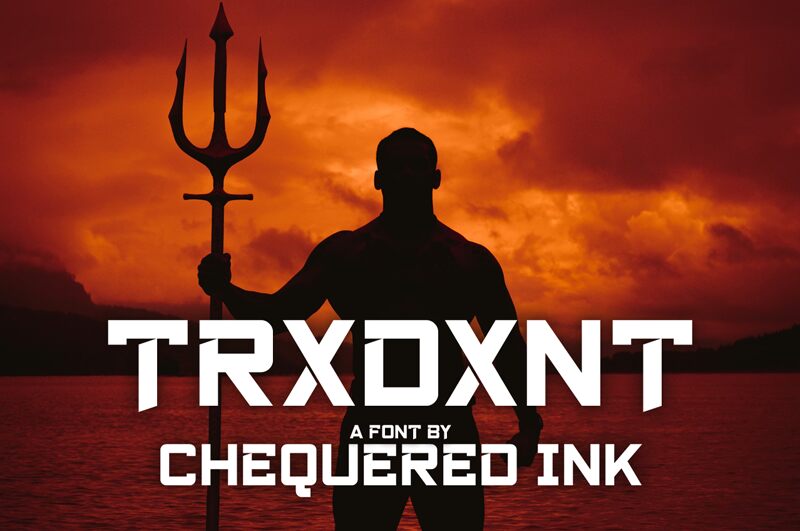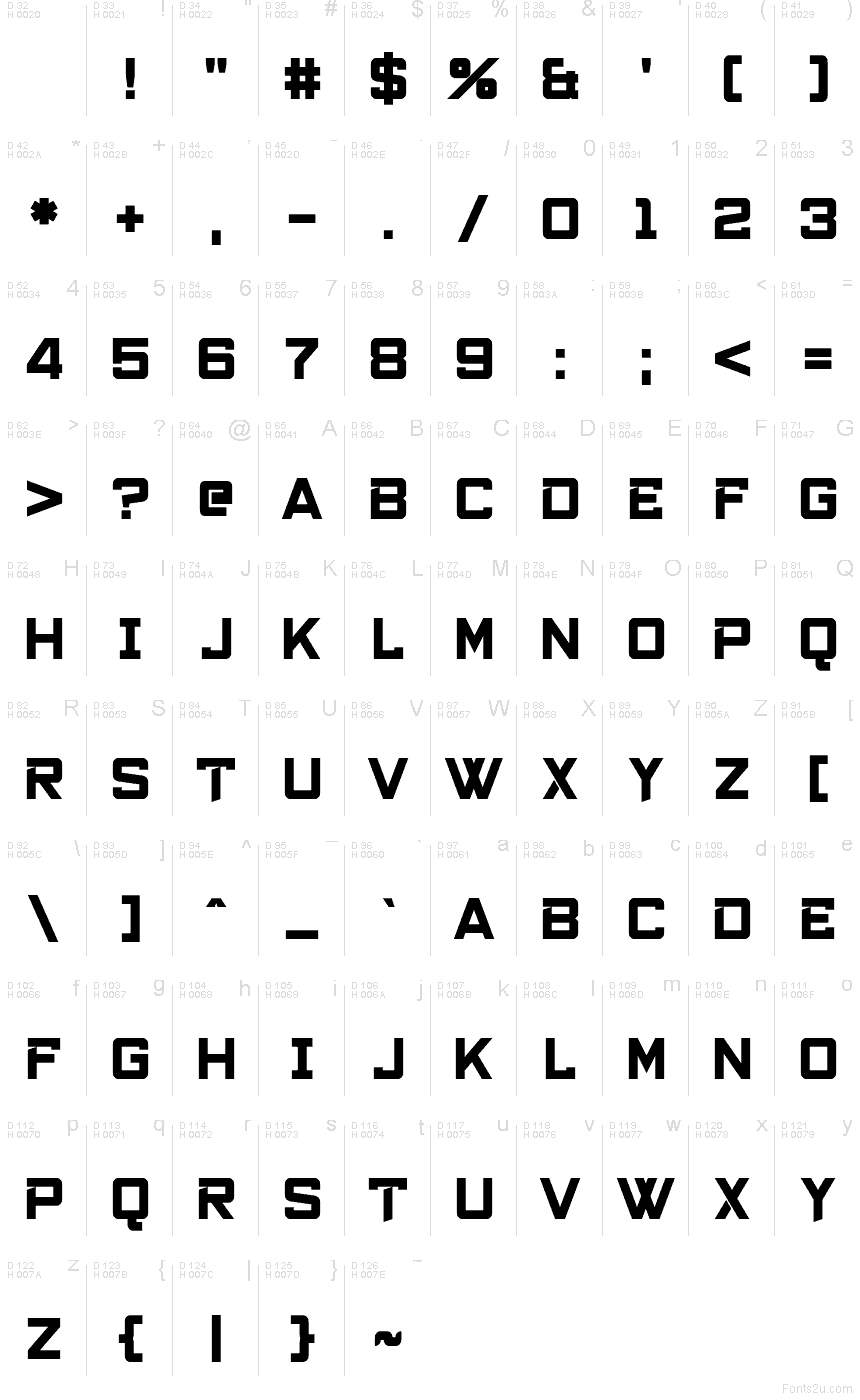
Trxdxnt
Trxdxnt font by Allison J. James of Chequered Ink is a free techno font with a hard-edged, cut-metal attitude. Its chunky geometry and razor-notched joints create a tight, mechanical rhythm that reads like signage on a spaceport wall—bold, squared, and unapologetically sharp. The heavy strokes stay crisp even when you push scale, giving headlines a clean, armored punch.
Using Trxdxnt on sci‑fi posters, gaming logos, esports banners, album covers, tech event flyers, product packaging, or YouTube thumbnails instantly adds momentum. Pair this free font with a simple neutral sans for body copy, and give it a little extra tracking so the angles can breathe.